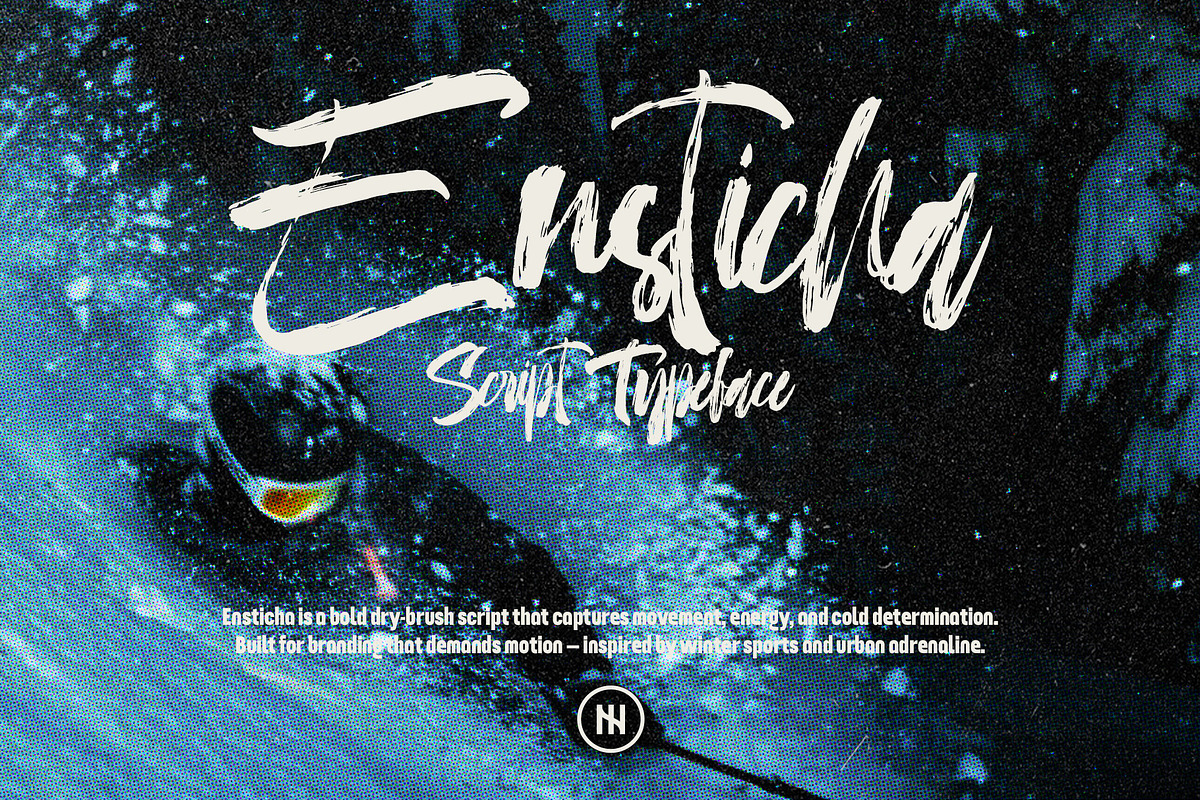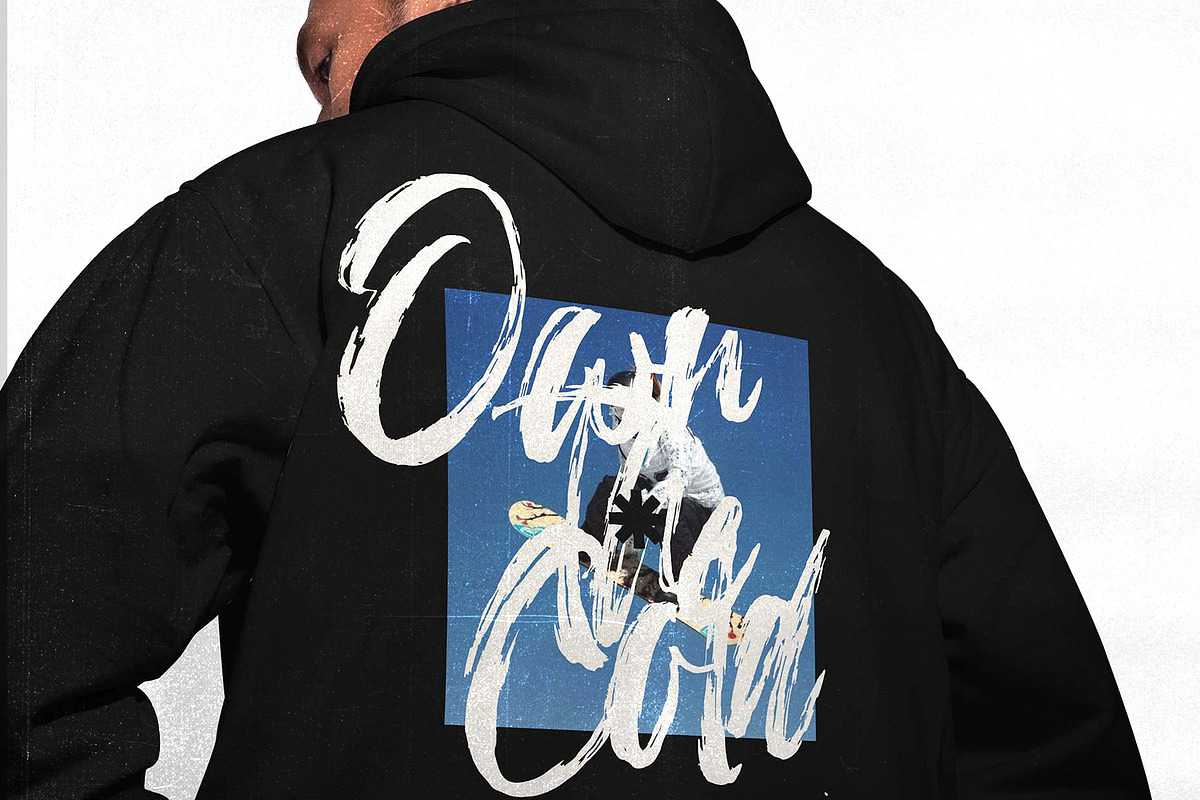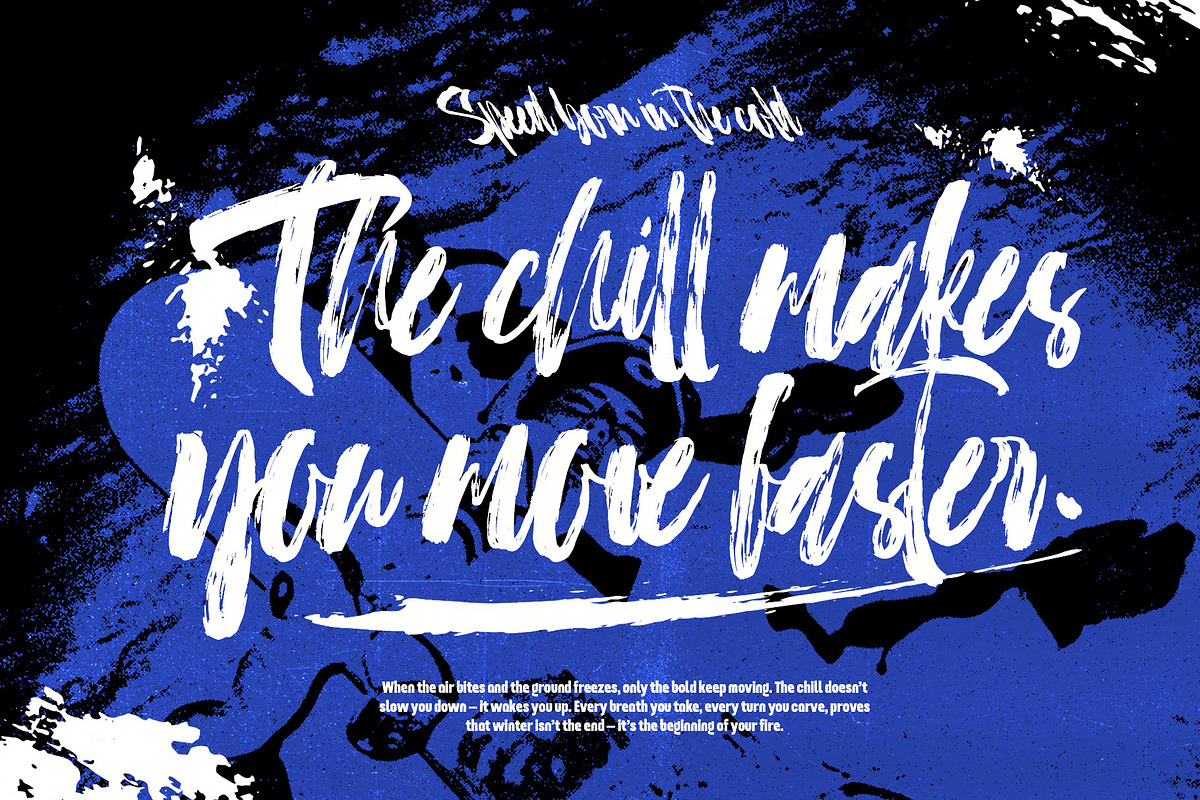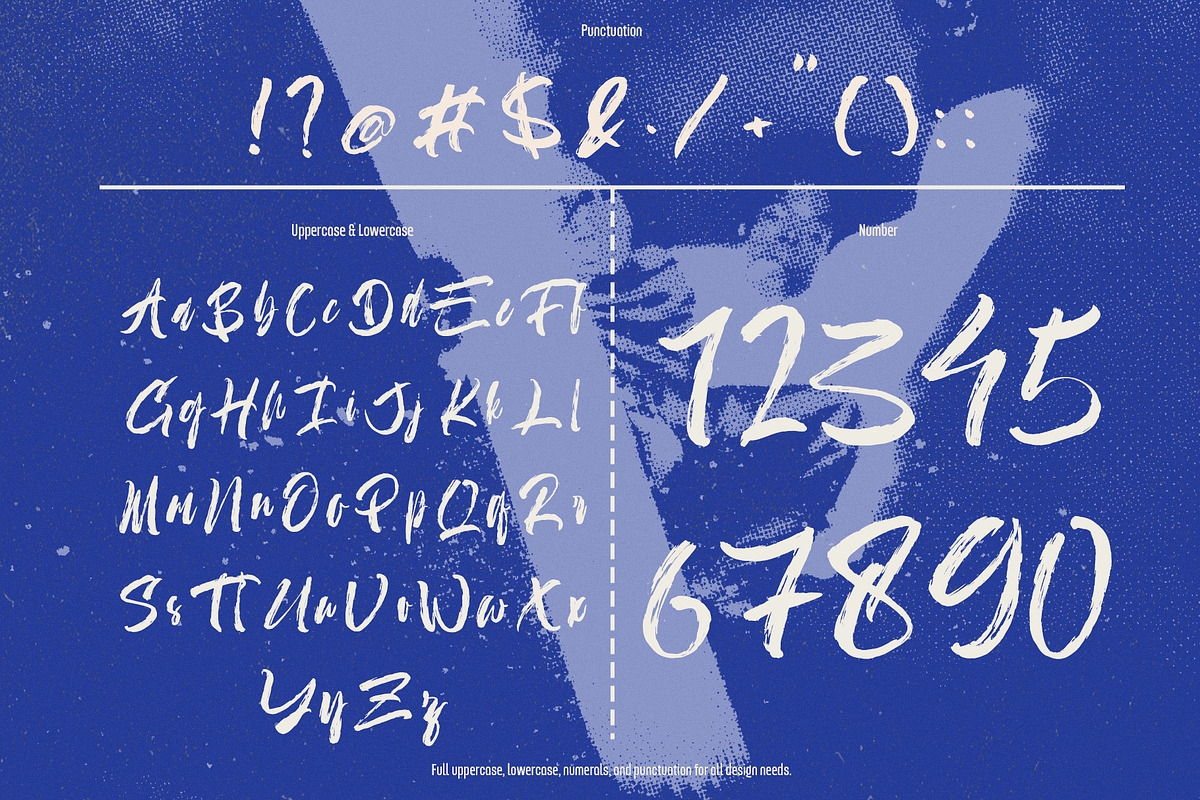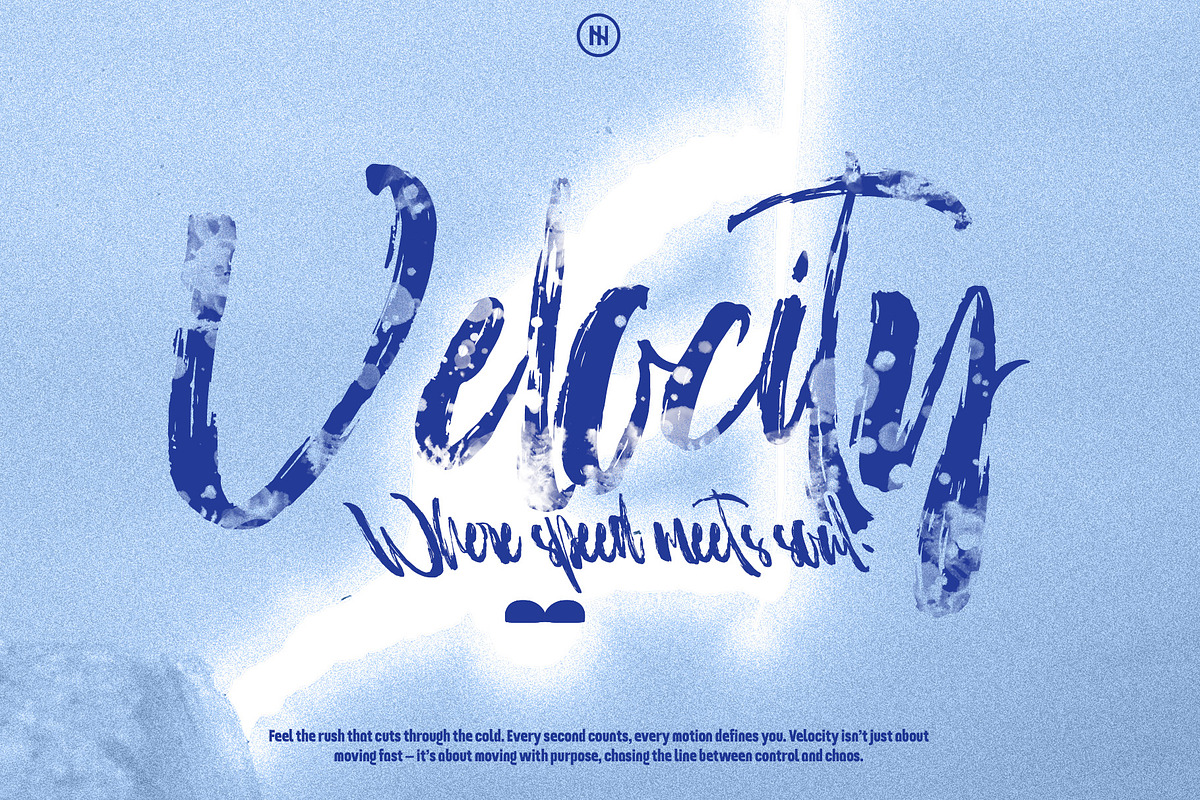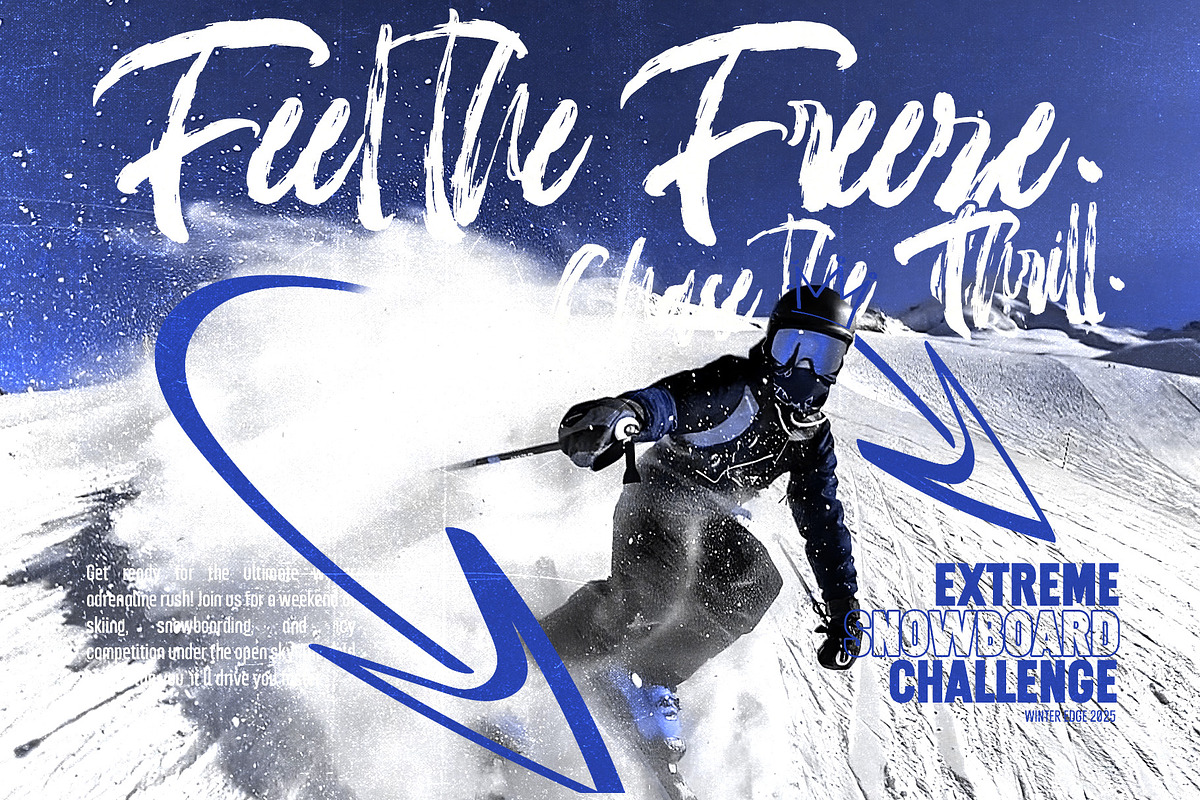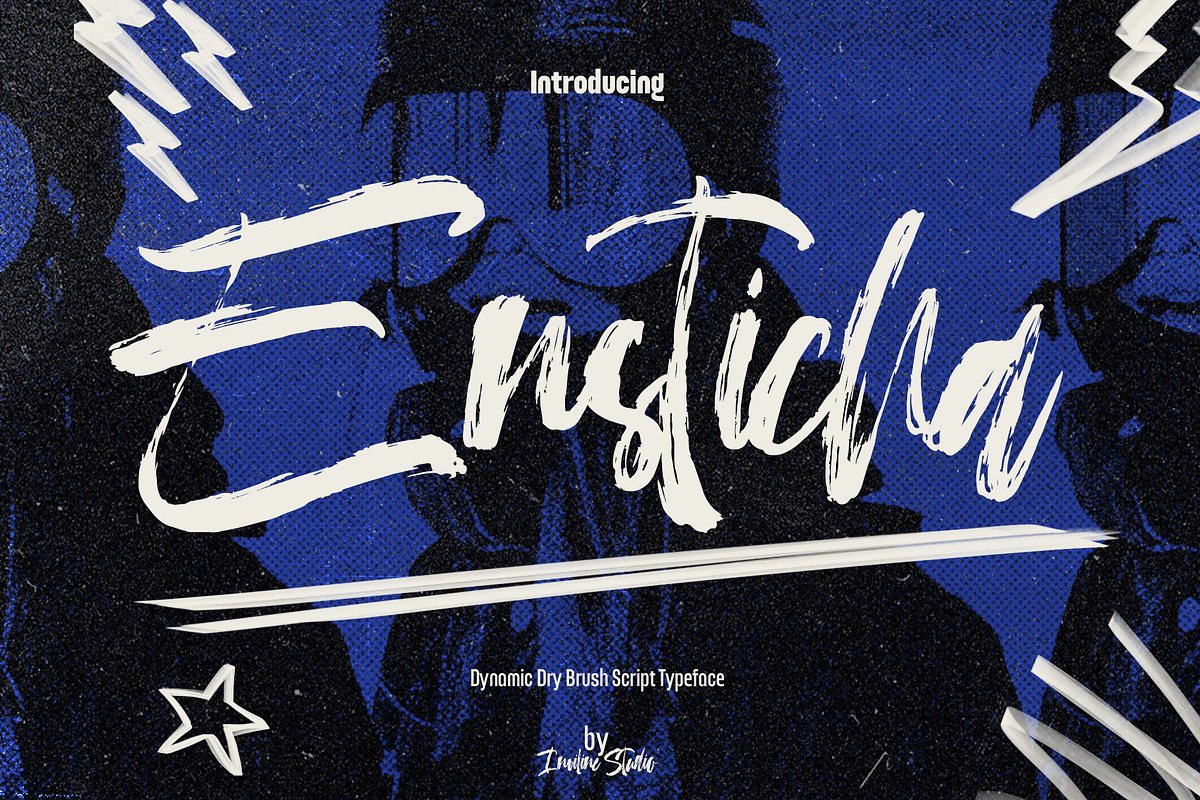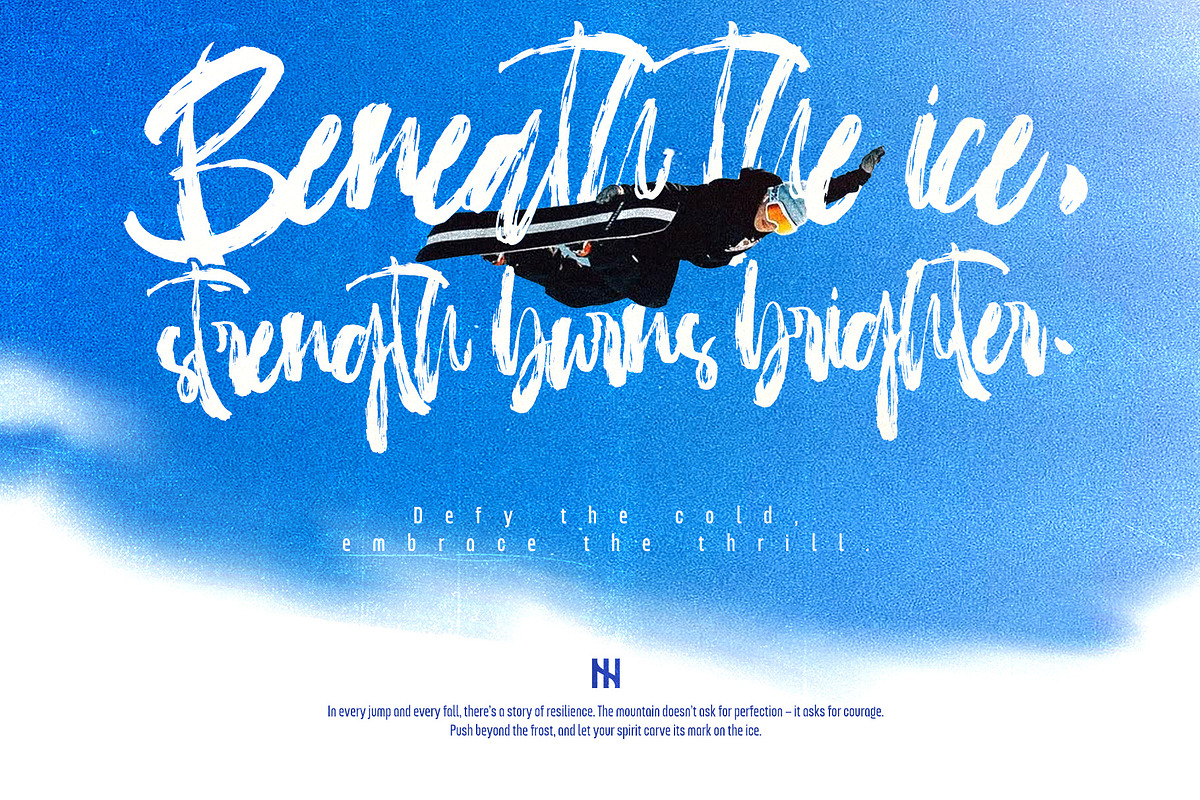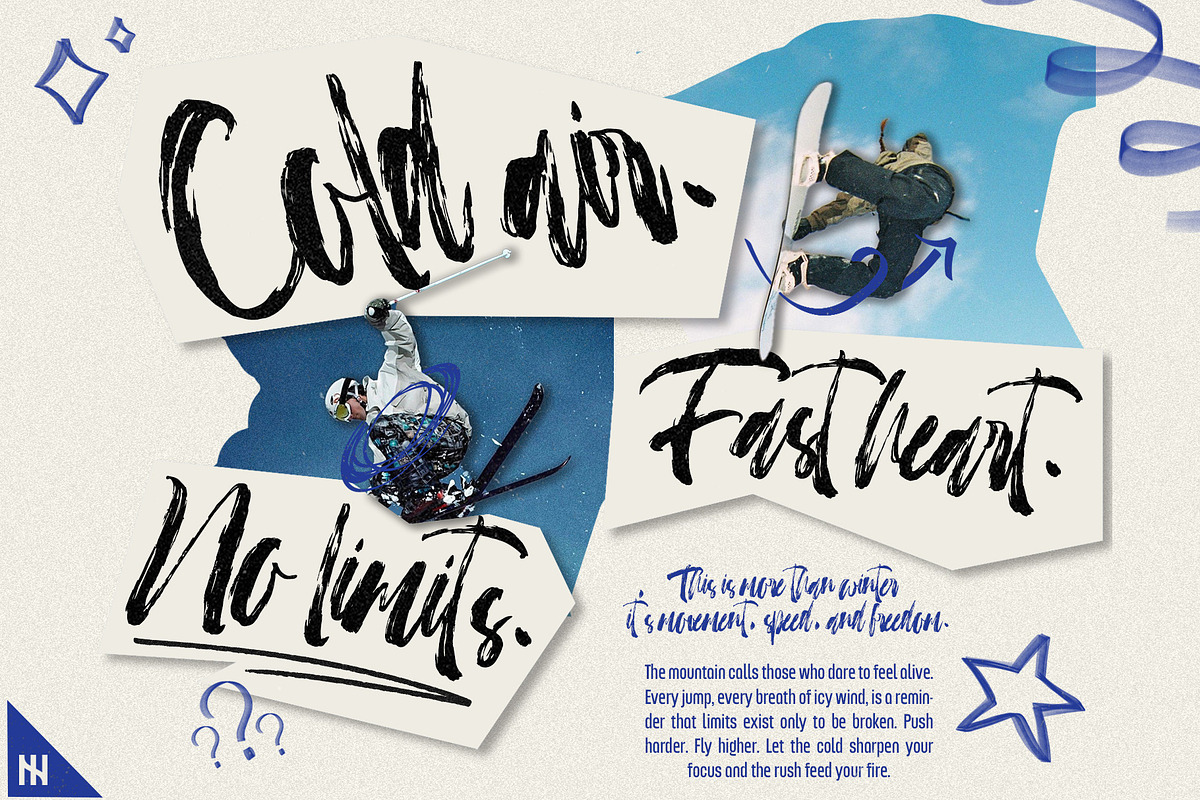
Ensticha - Dry Brush Script
Ensticha is a dynamic dry brush script typeface created with raw movement, energetic strokes, and an expressive handmade character. Its rough edges, natural ink variation, and fast handwritten rhythm give every word a bold and spontaneous appearance.
Designed for projects that require attitude, movement, and visual impact, Ensticha works beautifully across urban branding, music artwork, posters, promotional campaigns, packaging, and contemporary editorial layouts.
Overview
Ensticha combines expressive brush lettering with a strong display structure. Its sweeping capital letters, textured lowercase forms, and naturally irregular strokes create typography that feels energetic without losing readability.
The font is most effective at medium and large sizes, where its dry-brush texture and extended strokes can become the focal point of a composition. Use it with halftone patterns, distressed photography, bold colors, collage elements, or high-contrast layouts to strengthen its modern urban personality.
Ensticha can be used independently for statement typography or paired with a condensed sans serif, grotesque, or neutral serif font for supporting information.
Ensticha Dry Brush Script Font
Uppercase characters A–Z
Lowercase characters a–z
Numerals 0–9
Standard symbols and punctuation
Multilingual accented characters
Dynamic dry brush script style
Rough and expressive handwritten texture
Bold sweeping uppercase characters
Energetic lowercase letterforms
Natural stroke and ink variations
Uppercase and lowercase alphabet
Complete numerals
Standard symbols and punctuation
Strong readability at display sizes
Suitable for print and digital applications
Ideal for headlines, logos, titles, and short phrases
Works well with urban, grunge, music, and sports visuals
Easy to pair with condensed or geometric sans serif fonts
Suitable for layered, outlined, and textured treatments
Stylistic Alternates: no dedicated alternate character set is clearly confirmed in the supplied preview
Ligature Pairs: the following 18 ligatures are not clearly confirmed in the supplied preview: st, br, cr, ct, fr, ist, op, or, ox, th, Tr, tt, wn, ff, fi, fl, ffi, ft
Multilingual Support: Western European characters with diacritics (À, Á, Â, Ç, É, Ñ, Ø, Ü, etc.)
Ideal For / Use Cases
Urban branding
Music posters
Album cover artwork
Festival graphics
Concert promotions
Sports branding
Skate and surf projects
Streetwear identities
Logo and wordmark design
Editorial headlines
Magazine covers
Product packaging
Beverage labels
YouTube thumbnails
Event posters
Promotional banners
Sticker designs
Merchandise graphics
Photography overlays
Quote designs
Creative advertising
Youth campaign graphics
Contemporary collages
Bold visual identities
Use Ensticha at medium or large sizes to preserve its brush texture and expressive details. It is most effective for names, headlines, logos, posters, product titles, and short promotional phrases rather than long paragraphs.
Pair it with a clean condensed sans serif for dates, descriptions, captions, and supporting information. Adjust tracking and line spacing when creating multi-line compositions, and leave additional space around extended brush strokes.